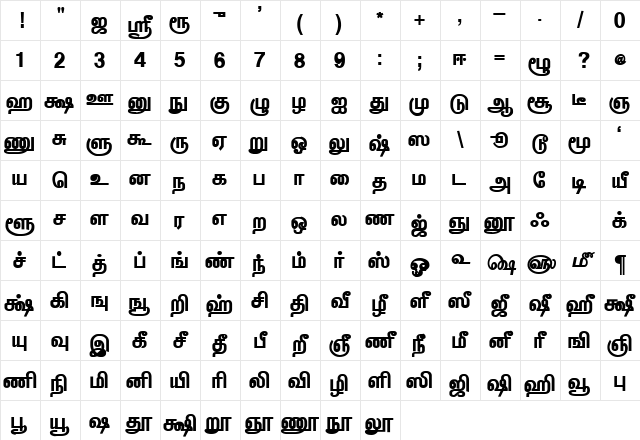
VANAVIL-Avvaiyar Bold Normal
Design Context for VANAVIL-Avvaiyar Bold
VANAVIL-Avvaiyar Bold is a composed and adaptable typeface that performs quietly and consistently across a wide range of design contexts. Its bold stroke weight gives it real presence on the page.